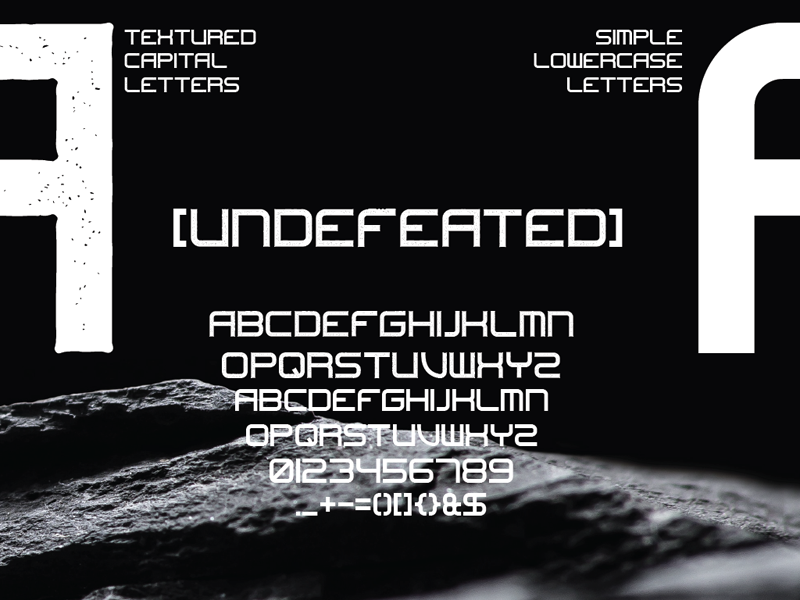
A simple and modern typeface waiting just for you. Buy it for commercial use: https://sellfy.com/p/dLIa/ Use it in logos, t-shirt designs, brandings, etc. There are endless possibilities with this font. Grab it, use it, share it! ------------------------------------------ tag me on Instagram: @gl0w_org |